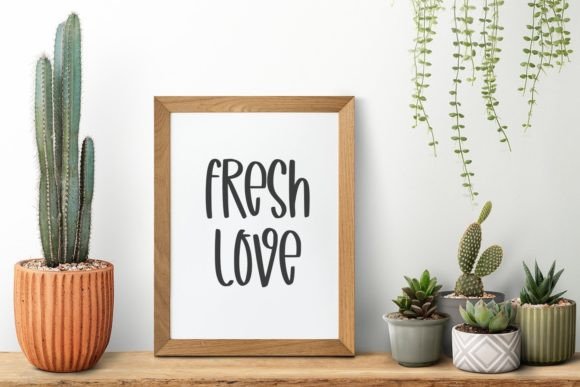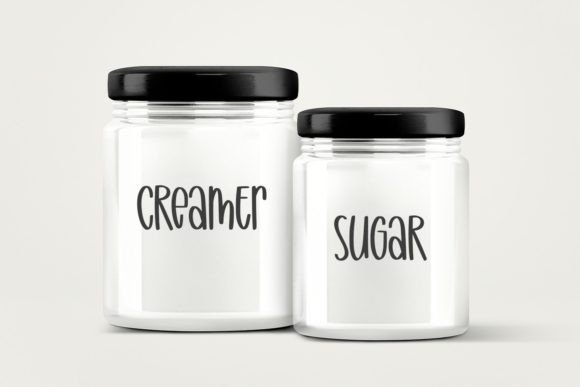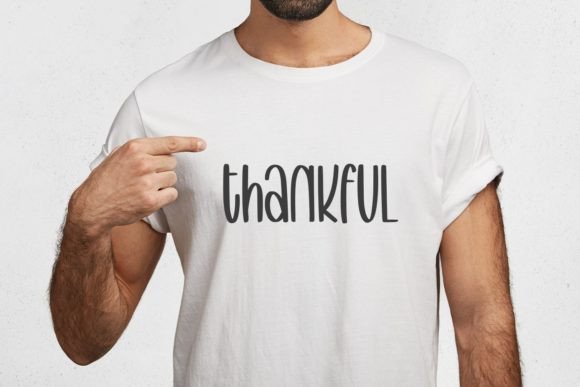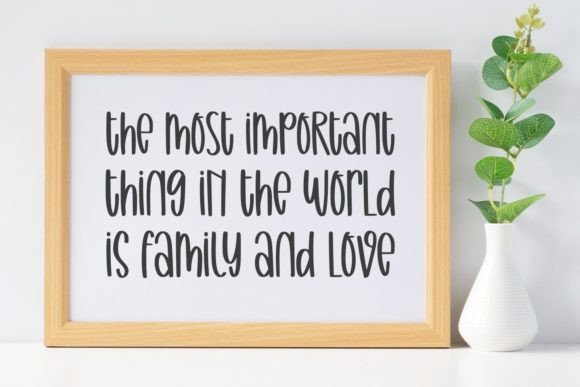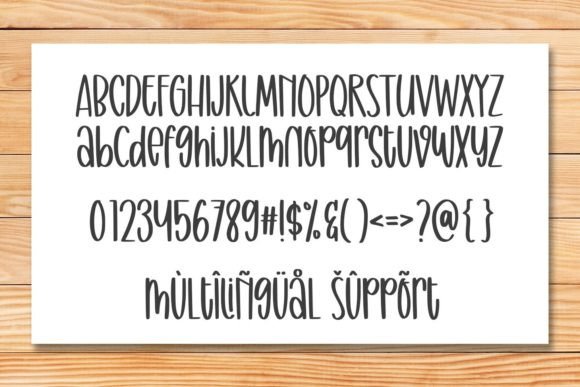
Introduction to Minimalike Font
Have you ever been browsing through a vibrant market or scrolling through social media, and suddenly, a quirky design catches your eye? Maybe it’s a bold graphic on a tote bag, a funny quote on a mug, or an eye-catching post on Instagram. Whatever it is, it’s likely that the Minimalike Font is behind its charm. This simple and playful display font is a design resource that can breathe life into your creative projects.
As a designer, you’re always on the lookout for the perfect font to elevate your work. And Minimalike Font is a valuable addition to your design toolkit. With its free download and transparent background, you can use it on a variety of projects, from T-shirt designs to social media posts. Its high-quality design makes it perfect for adding a touch of whimsy to your work.
Key Features of Minimalike Font
- High-quality font with a modern and clean design, perfect for creative projects.
- Includes transparent background option for seamless integration into various design elements.
- Perfect for use in logos, branding materials, and other design elements where a minimalist aesthetic is desired.
- Easy to customize and pair with other fonts, making it a versatile design element for creative projects.
Honest Review: Minimalike Font
As a designer, I’m always on the lookout for high-quality design resources to enhance my creative projects. Recently, I came across the Minimalike Font, and I must say it’s been a game-changer for me.
Here are some things that work well with this font:
- ✨ Elegant and modern design: The Minimalike Font has a clean and sophisticated look that’s perfect for modern designs.
- ✨ Transparent background: The font’s transparent background allows for seamless integration with other design elements.
- ⚠️ Limited character set: The font’s character set is limited, which might not be suitable for longer texts or complex designs.
- ⚠️ Not suitable for small text sizes: The font’s design might not be ideal for small text sizes, which could affect readability.
Overall, I’m impressed with the Minimalike Font’s high quality and versatility. It’s a great addition to any designer’s toolkit, especially for creative projects that require a modern and elegant look. I’d definitely recommend it as a design resource, and I’m looking forward to using it in future projects.
For the best results, use the Minimalike Font in conjunction with a simple, high-contrast color scheme. You can also experiment with different font sizes and styles to create visual interest.
Common Use Cases for Minimalike Font
The Minimalike Font is ideal for a wide range of creative projects, including business cards, brochures, and websites. Its clean, minimalist design makes it perfect for conveying a sense of professionalism and sophistication.